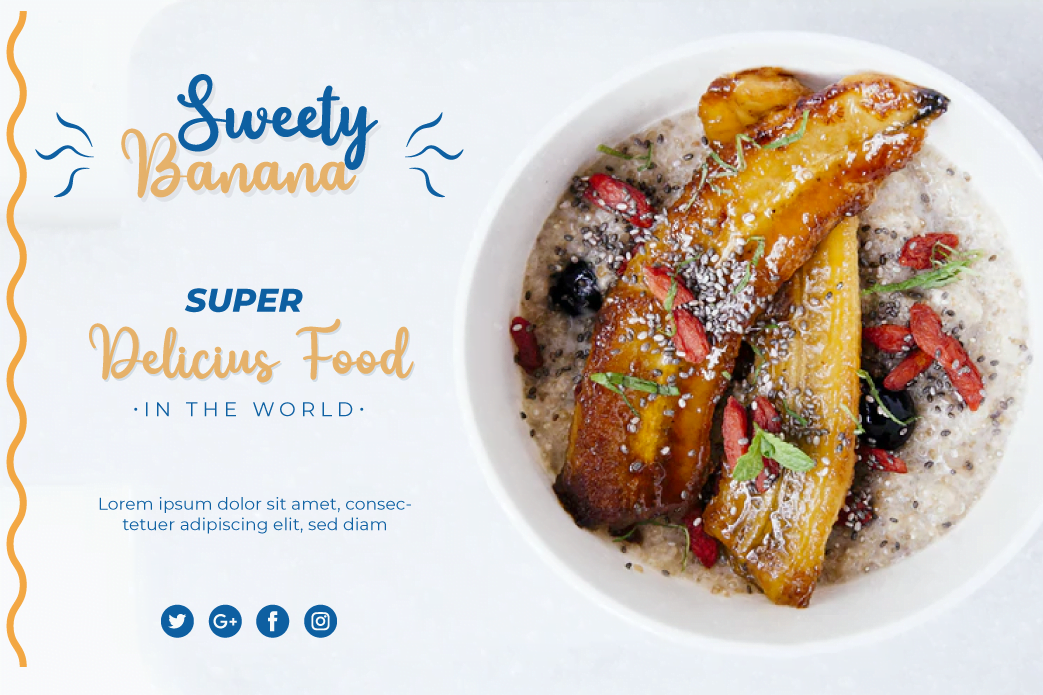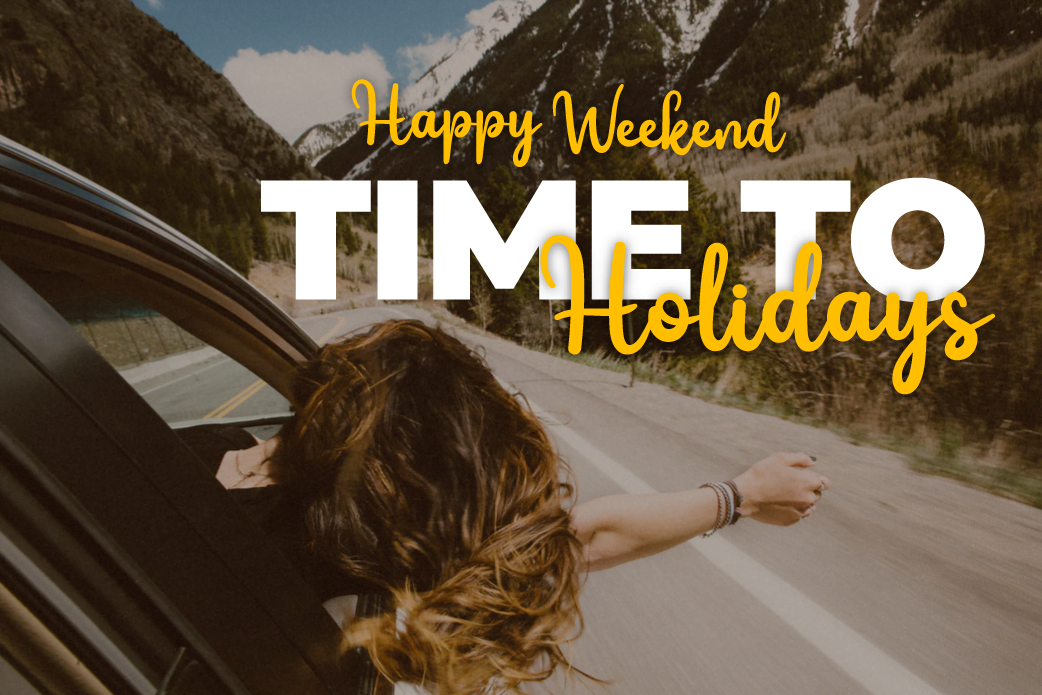
Gabust
Gabust is a beautiful and elegant handwriting script font that has a feminine character and is sweet in its use, besides that this font is also very suitable for use in designs that require handwriting as well as others.
This font is designed with a natural touch of handwriting which is refined to create a portion and composition that suits your needs. So this font is suitable for craft, children’s writing, adventure posters, food banner titles, wedding invitations, product packaging logos, quotes, social media page covers, furniture banner headlines, book covers, and much more.